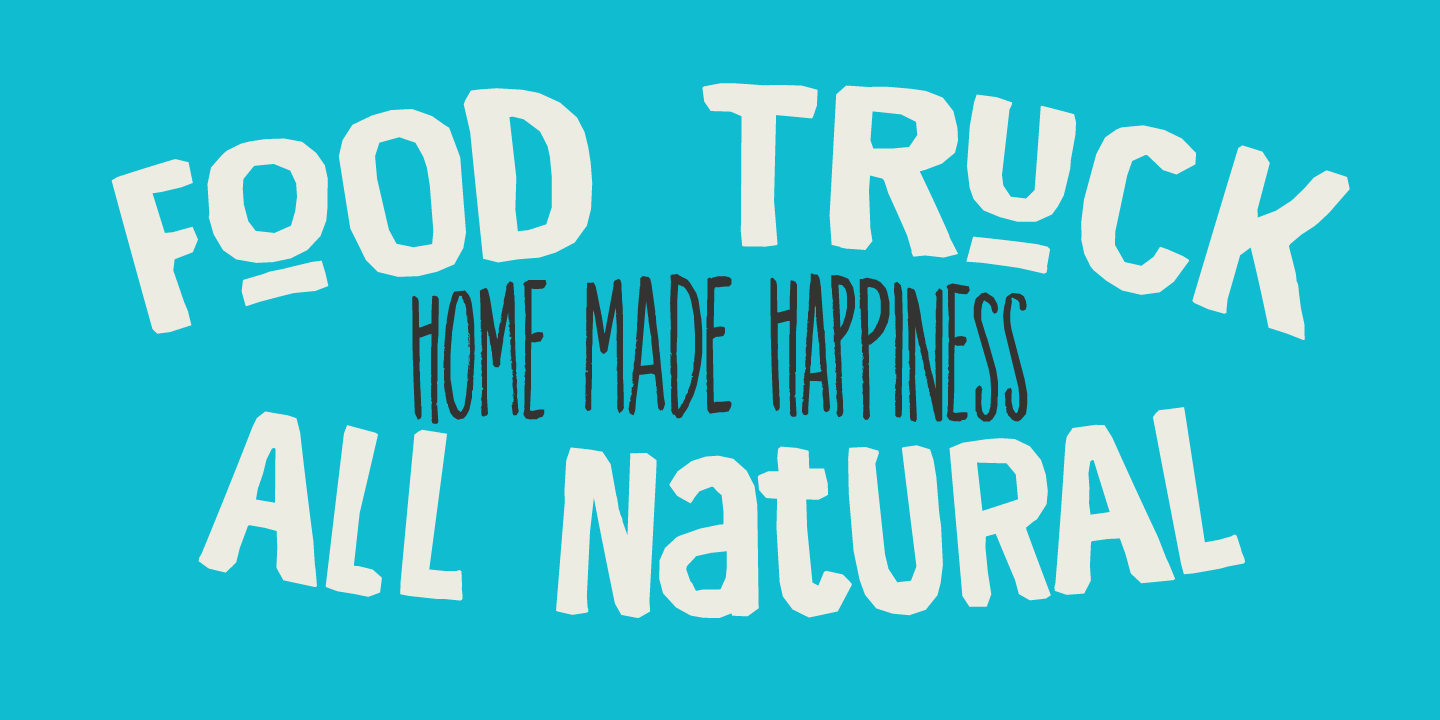
Food Truck Font is a deliciously designed typeface that perfectly captures the lively, friendly, and often quirky spirit of mobile culinary experiences. Imagine this font gracing the side of a vibrant food truck, instantly drawing in hungry customers with its approachable and inviting aesthetic. It's also an excellent choice for branding artisanal food products, designing menus for casual eateries, or creating eye-catching social media posts for pop-up events. Furthermore, Food Truck Font can bring a playful and energetic vibe to local market signage, cooking blogs, and even community event promotions, making any message feel fresh, fun, and flavorful.
What makes Food Truck Font truly exciting is its ability to convey a sense of genuine warmth and unpretentious charm. It often features rounded edges, a slightly distressed or hand-drawn quality, and a friendly irregularity that evokes the authenticity of homemade cooking. This isn't just a stylistic choice; it creates an immediate connection with the viewer, suggesting comfort, creativity, and a passion for good food. It manages to be both distinctive and highly versatile, fitting seamlessly into various design contexts from rustic to urban chic. For designers looking to infuse their work with a taste of playful authenticity and an inviting character, Food Truck Font offers a genuinely captivating solution.
Food Truck Font Family
Food Truck Font typically comes with a family designed to maximize its delightful appeal and ensure versatile application across various design elements. You'll often find it available in various weights such as Regular and potentially a Bold or Rough version to provide emphasis or a more weathered look. Many display or handcrafted fonts like Food Truck also include delightful alternate characters, ligatures, or stylistic sets that allow for even more customization, enabling designers to create truly unique and personalized text arrangements. These stylistic options further enrich the font's character, providing designers with the tools to craft diverse and engaging layouts while maintaining a consistent, appetizing aesthetic.